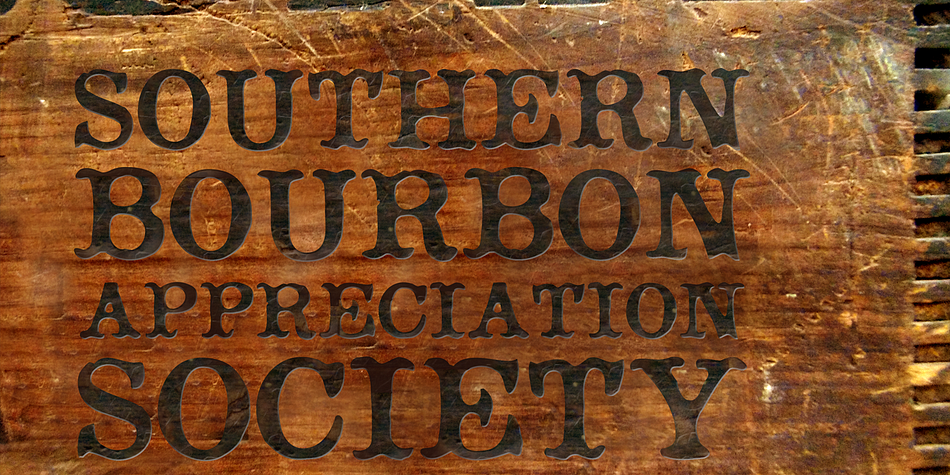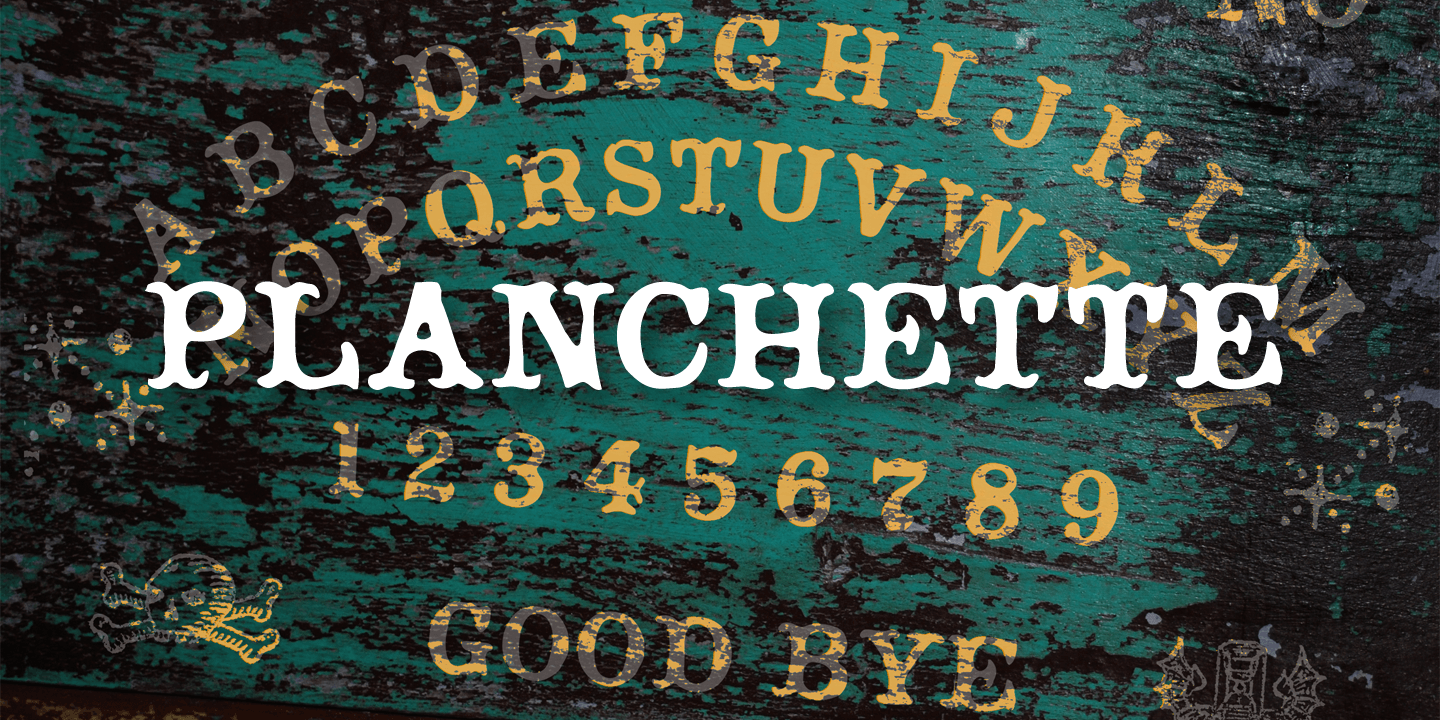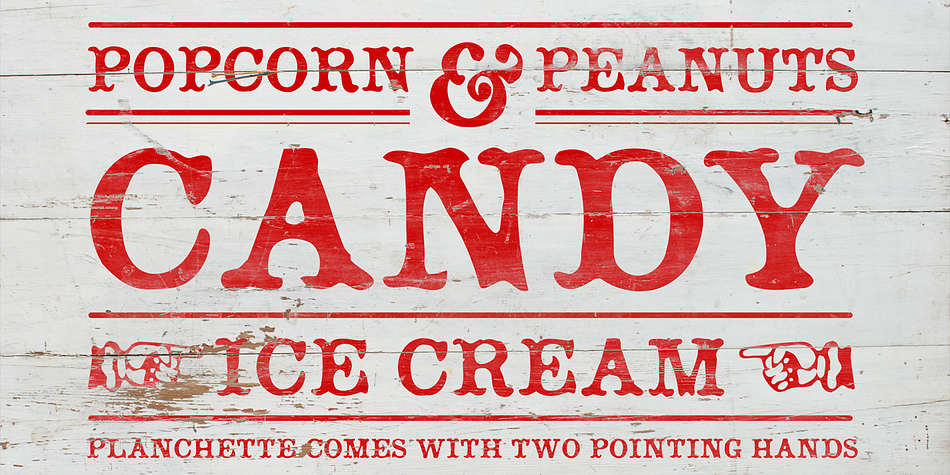
Designed by Stephen Miggas, Planchette is a historical and display serif font published by Aerotype.
Based on a 19th century Toscanienne typeface, Planchette has two hand ornaments accessible by the > and < keys.